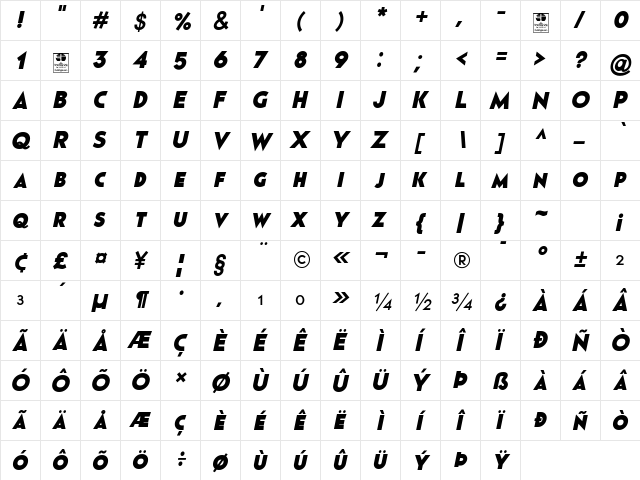
Pages Grotesque Black Demo Italic
Design Context for Pages Grotesque Black Demo Typeface
Pages Grotesque Black Demo takes a measured approach to typography — its balanced proportions and neutral character make it a reliable workhorse for both digital and print work. The slanted form adds forward momentum and visual energy.
Pro Tip: Try Pages Grotesque Black Demo for annotation and caption copy alongside an upright companion — the contrast in angle creates a dynamic but ordered typographic system.